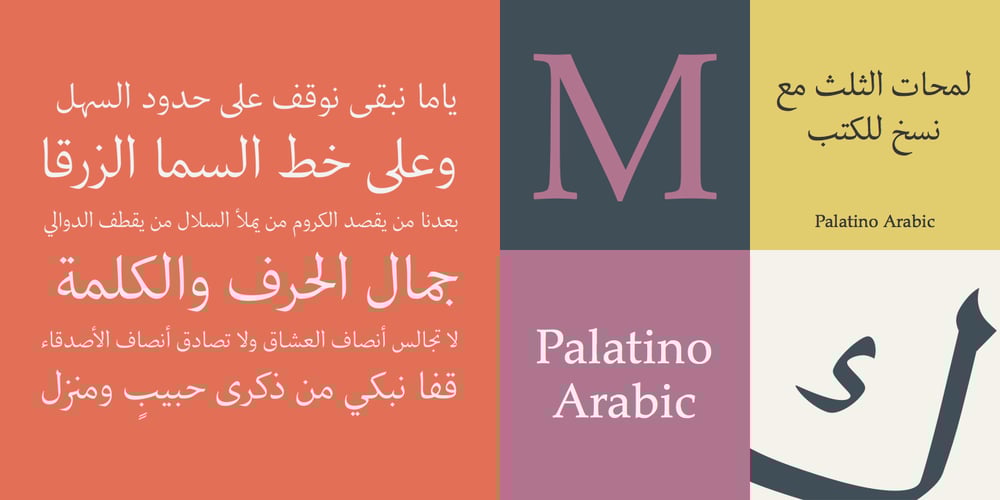
Palatino Arabic Font Family was designed by Hermann Zapf, Nadine Chahine and published by Linotype. Palatino Arabic contains 1 styles and family package options. Palatino Arabic is a collaboration between Lebanese designer Nadine Chahine and Prof. Hermann Zapf. The design is based on the Al-Ahram typeface designed by Zapf in 1956 but reworked and modified to fit the Palatino nova family. The design is Naskh in style but with a strong influence of the Thuluth style as well. This is evident in the swash-like finials and the wide proportions of the letterforms. It is designed for use in print in both large and small sizes. The counters are wide open to allow for better readability in small sizes as well as to maintain an open and friendly appearance. The font has 1091 glyphs and includes a large number of extra ligatures and stylistic alternates as well as the basic Latin part of Palatino nova and support for Arabic, Persian, and Urdu. It also includes proportional and tabular numerals for the supported languages.Palatino Arabic wins Type Directors Club award. Each year, the New York-based Type Directors Club judges typeface designs from all over the world in their TDC2 contest. Linotype is pleased to announce that a very new typeface of its own is among 2008’s winners: Palatino Arabic. A collaboration between Nadine Chahine and Prof. Hermann Zapf, this face is an extension of Zapf’s Al-Ahram Arabic type from 1956 recreated to join the Palatino nova family.